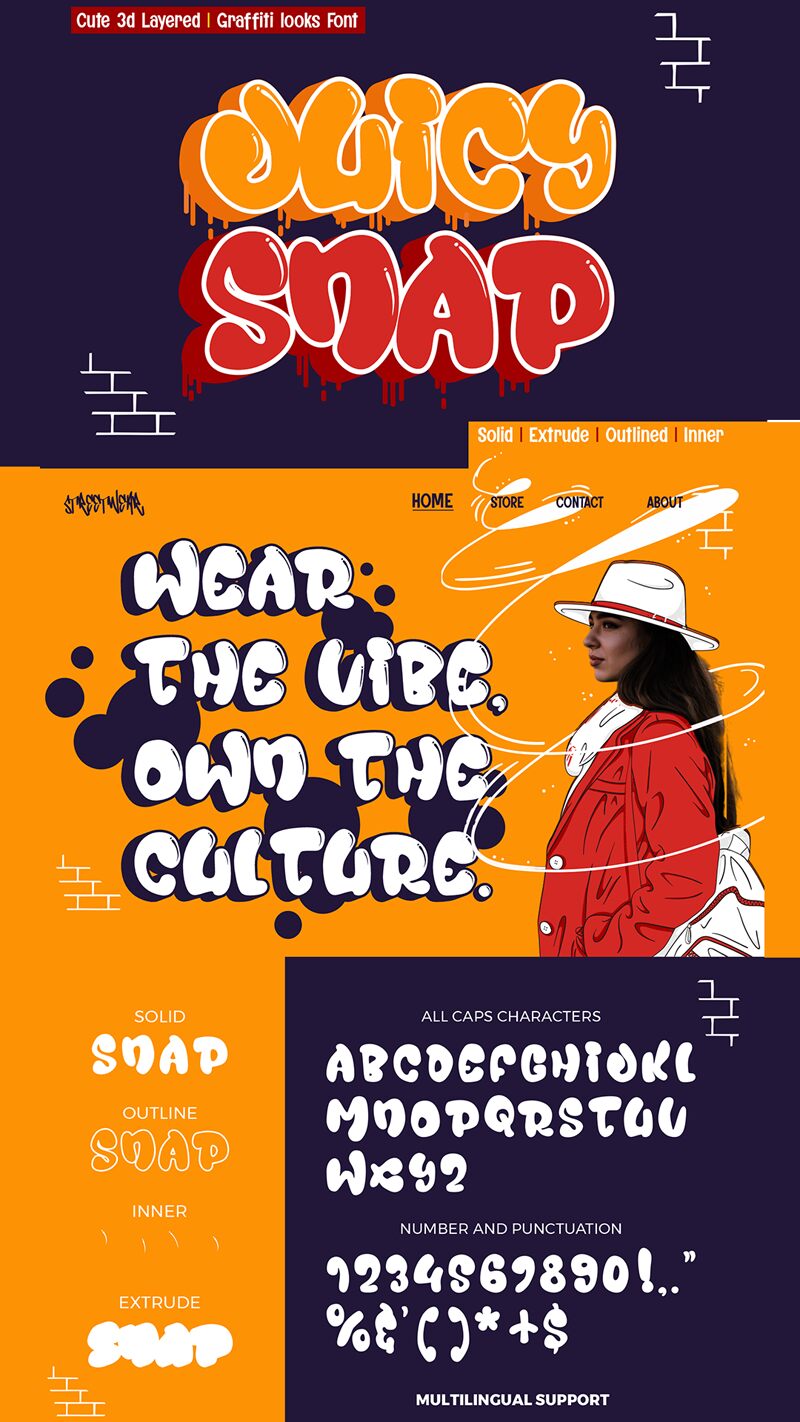
Juicy Snap Outline font by Muhammad Panji Ramdhani of Sipanji x Figuree brings bubble-graffiti energy with a crisp, airy outline that keeps the letters loud without turning into a blob. Part of the Juicy Snap family, it feels like puffy marker strokes frozen mid-pop-rounded, bouncy, and packed with playful rhythm. It’s a free graffiti font, and the open centers give your color, textures, or photos room to show through.
Using Juicy Snap Outline works beautifully for sticker-style logos, streetwear tags, skate and hip-hop posters, kids’ event flyers, YouTube thumbnails, snack or soda packaging, and punchy social headers. This free font shines at larger sizes where the outline can breathe; give it a solid fill or a bright background for instant contrast. Pair it with a clean condensed sans for captions so the headline stays juicy and the details stay sharp.